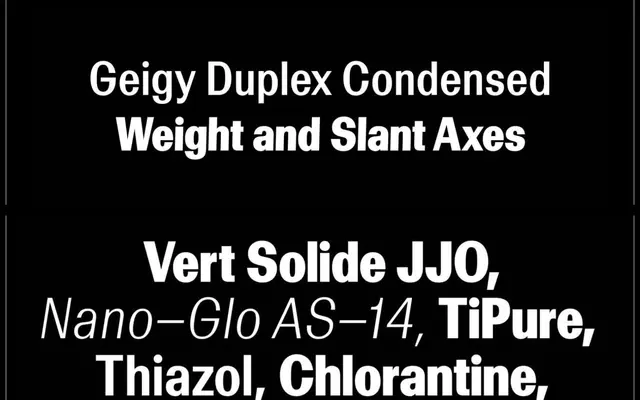
Geigy Cond Duplex Var
Lineto · Robert Huber · 2024
Geigy Cond Duplex Var specimen from Lineto
A condensed variable font by Robert Huber built on a duplex model, so glyph widths and spacing remain fixed across the full weight and slant range without text reflow.
Derived from LL Geigy, this variable font applies a uniwidth structure dating back to hot-metal typesetting, where consistent glyph widths allowed compositors to switch weights or styles without resetting entire paragraphs. All metrics and kerning were re-analysed across the complete weight range to preserve this fixed-width behaviour while supporting a continuous weight axis from Light to Black and a slant axis from Roman to Italic. The format is particularly suited to screen interfaces and animated type, where transitions between weights or styles can be rendered gradually without layout shifts.
Described by the foundry as an eccentric sans serif, the condensed duplex variable is a uniwidth typeface with fixed spacing and kerning across its full weight and slant range, placing it firmly in the sans-serif category with an idiosyncratic, display-leaning character.